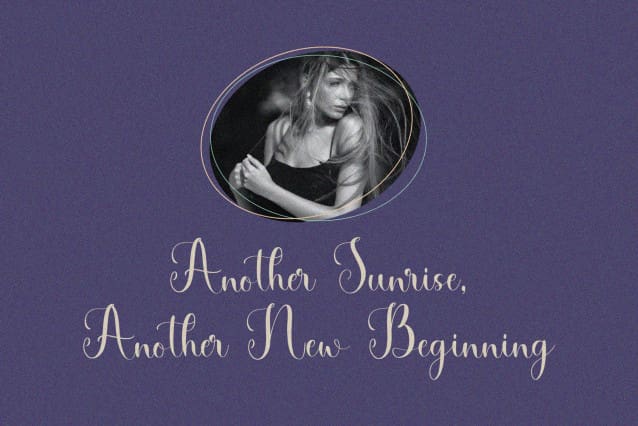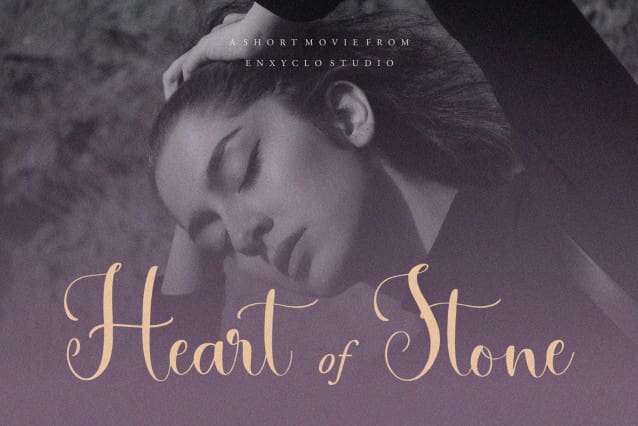
NCL Besty Sigenjo Font
NCL BESTY SIGENJO FONT is a modern and elegant script font. Masterfully designed to become a true favorite, this font has the potential to bring each of your creative ideas to the highest level! NCL BESTY SIGENJO was purposely crafted to be used in large point sizes, although it doesn’t lose its magic in small point sizes. NCL BESTY SIGENJO is perfect for wedding or romantic event, headline, billboard, magazines, website, titles, poster, branding, and logos. No matter the topic, this font will be an incredible asset to your fonts’ library, as it has the potential to elevate any creation. With this beautiful font, absolutely you can make your project stand out from the rest.